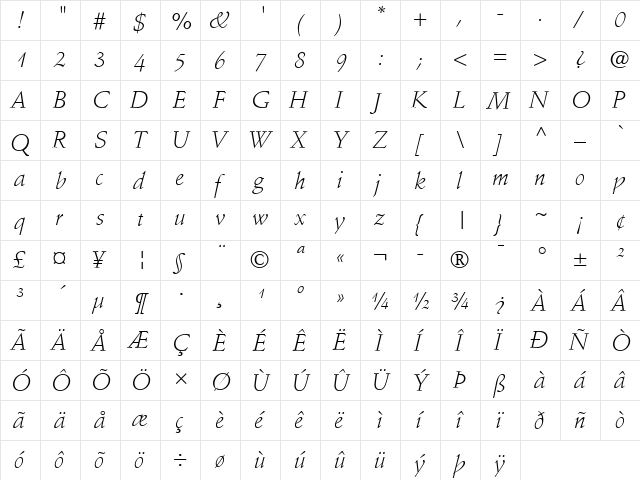
StempelSchneidler LT Light Italic
Design Context for StempelSchneidler LT Light Typeface
StempelSchneidler LT Light takes a measured approach to typography — its balanced proportions and neutral character make it a reliable workhorse for both digital and print work. The slanted form adds forward momentum and visual energy. The delicate stroke weight brings airiness and refinement to layouts.
Pro Tip: Use StempelSchneidler LT Light for emphasis, pull quotes, and subheadings where its slanted energy can add rhythm to the layout.